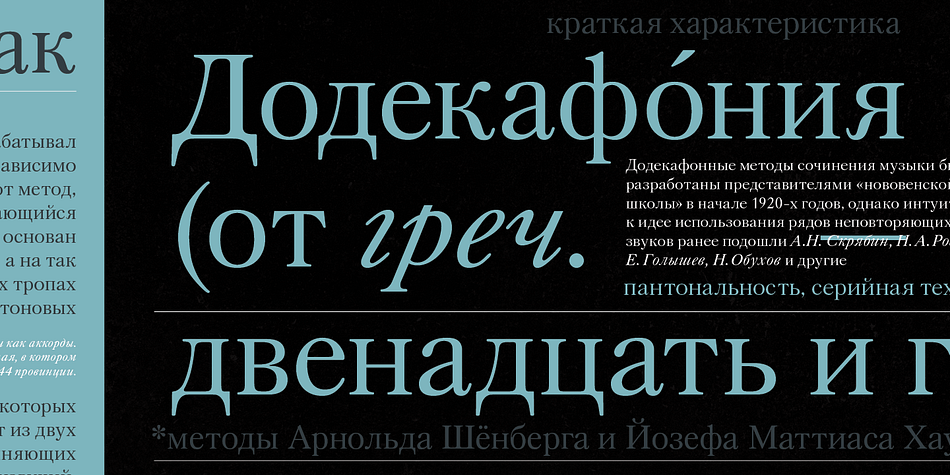
Zagolovochnaya
Designed by Manvel Shmavonyan, Zagolovochnaya is a serif font family. This typeface has four styles and was published by ParaType.
Based on the letterforms of Zagolovochnaya gazetnaya (Newspaper Display) type family of Polygraphmash in 1962 by Iraida Chepil et al. That face was a revival of Cyrillic version of Monotype Caslon designed in the late 1930s.
The artworks of Zagolovochnaya gazetnaya were redrawn by Isay Slutsker (1924-2002) in the late 1990s. Despite its name, the font is useful for both display and text matter. The digital version developed for ParaType in 2002 by Manvel Shmavonyan.